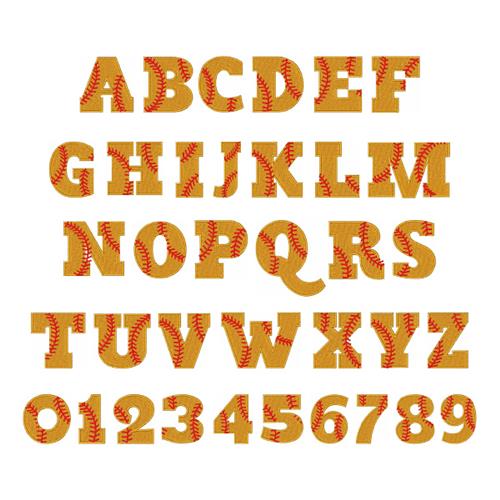
Embroidery Patterns is happy to present Softball Font machine embroidery font which has Bold block machine embroidery font with a sporty softball design, perfect for caps and team apparel. Available in PES, DST & 11 other formats for versatile stitching options. included. If you would like to view more embroidery fonts and alphabets please search our embroidery fonts page.